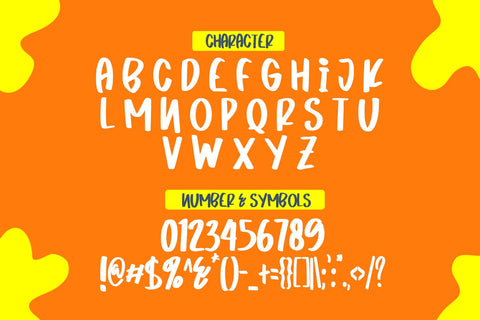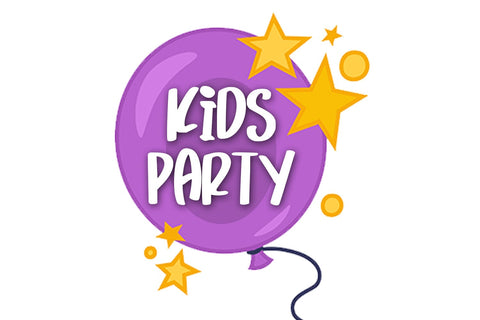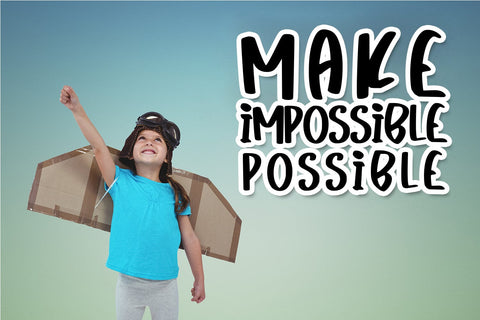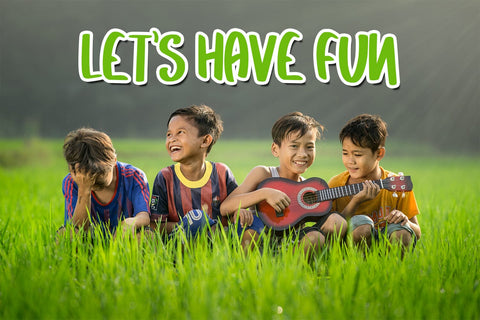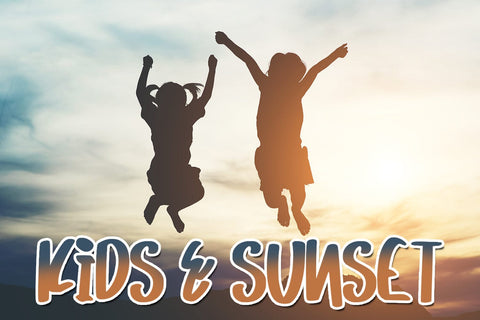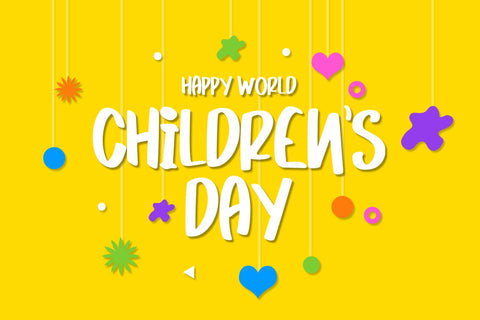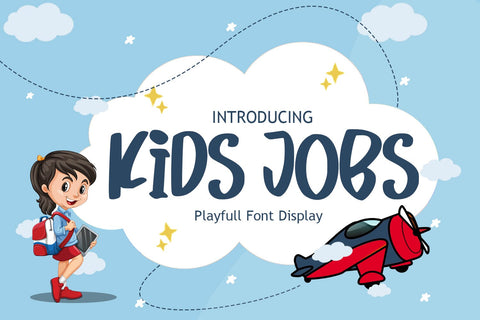
Kids Jobs
Kids Jobs Font – Kids Jobs Font is a design font with a natural brush style that can enhance the quality of your designs.
Kids Jobs– This Font is perfect for designs, logos, social media, brands, advertisements, product designs, handwritten quotes, product packaging, headers, posters, merchandise, and other designs.